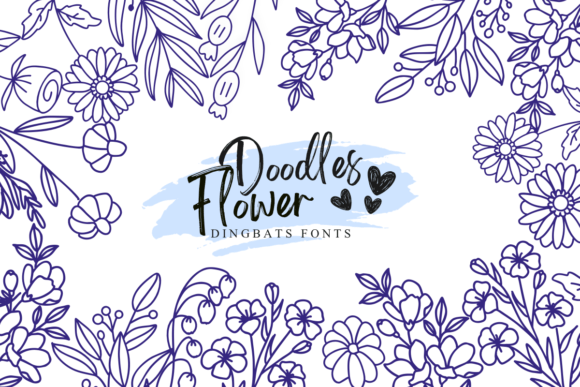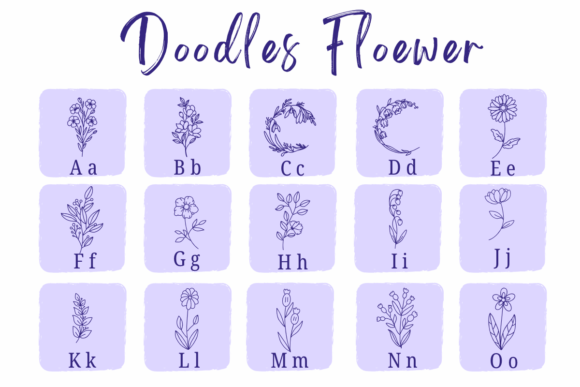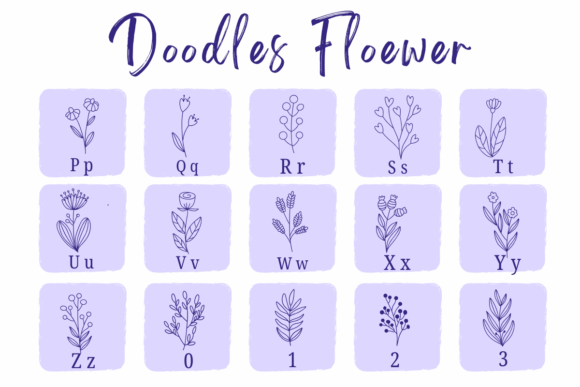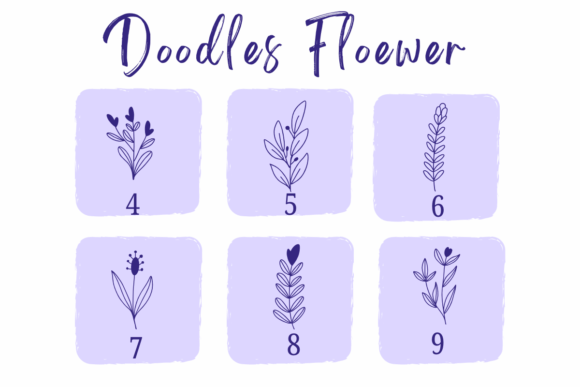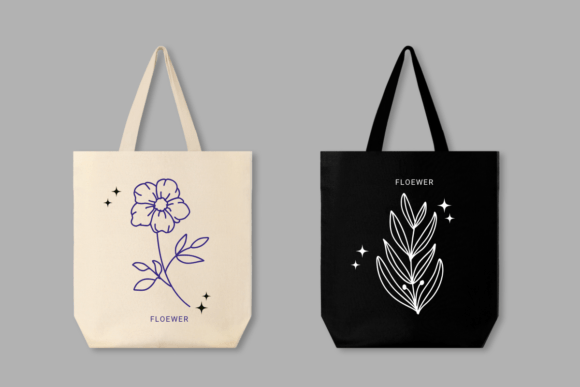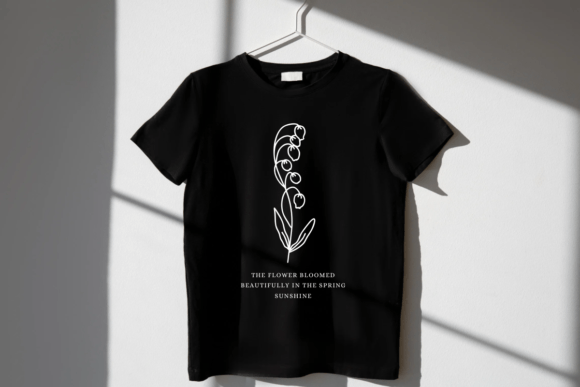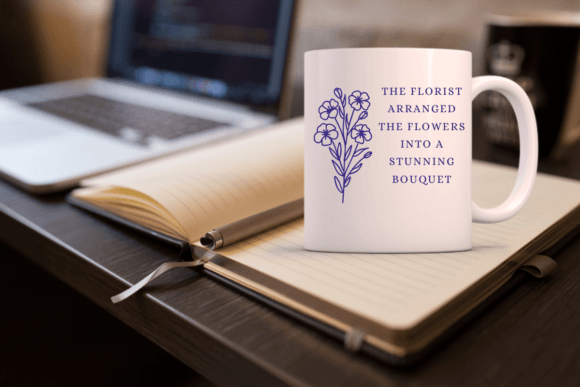
Get Ready to Bloom Your Designs with Doodles Flower Font
Have you ever been stuck in a creative rut, staring at a blank page or screen, searching for the perfect element to bring your design to life? I know I have! Sometimes all it takes is a tiny spark of inspiration to get those creative juices flowing. For me, that spark often comes from discovering a new font or tool that adds a touch of magic to my projects.
Enter Doodles Flower Font, a delightful dingbat font that’s bursting with cute flower designs. With Doodles Flower Font, each letter or symbol transforms into a beautiful flower, adding a whimsical and natural touch to your projects. Whether you’re designing a card, invitation, or simply want to add some flair to your social media posts, Doodles Flower Font is the perfect addition to your design toolkit.
As a designer, you know how valuable it is to have a versatile and easy-to-use tool like Doodles Flower Font in your arsenal. Its playful and charming designs make it an instant favorite among creatives, and its simplicity ensures that even the most novice designers can master it in no time.
Doodles Flower Font Key Features
- Character Set: The font includes a comprehensive set of characters, including uppercase and lowercase letters, numbers, punctuation marks, and special characters, making it suitable for various design projects.
- Unique Characteristics: The Doodles Flower Font features a playful, whimsical design with intricate floral patterns and doodle-style illustrations, adding a touch of personality to any design project.
- Font Style: The font is available in a single style, with a bold and playful feel that is perfect for creating eye-catching headings, titles, and graphics.
Doodles Flower Font Review
I recently had the chance to work with the Doodles Flower Font, and I wanted to share my honest thoughts on it.
- Unique Design: The Doodles Flower Font has a one-of-a-kind design that’s perfect for adding a touch of whimsy to your projects.
- Customizable: The font comes in a variety of styles and colors, making it easy to tailor to your specific needs.
- Playful Feel: The font’s playful feel makes it ideal for children’s books, party invitations, and other fun projects.
- Readability: While the font is perfect for decorative purposes, it can be difficult to read in large blocks of text.
- Lack of Standardization: The font’s unique design can make it challenging to use in conjunction with other fonts.
The Doodles Flower Font is a fun and creative addition to any design project. While it may have some limitations, its unique design and customizable options make it a great choice for adding a playful touch to your work.
Getting the Most Out of Doodles Flower Font
To get the most out of Doodles Flower Font, use it for:
Wedding invitations, stationery, and decorations.
Children’s party invitations and decorations.
Floral-themed designs, such as garden or flower arrangements.
Use the font in combination with other decorative elements, such as illustrations or graphics.
Doodles Flower Font is perfect for:
Creating a whimsical and playful atmosphere.
Adding a touch of elegance and sophistication.
Designing for children and young adults.
Alternatives to Doodles Flower Font for Designers
Compared to Doodles Flower Font, Great Vibes has a more refined and polished look, making it suitable for a wider range of applications. While Doodles Flower Font has a more playful and childlike feel, Great Vibes is more suitable for adult audiences.
Q: Can I modify the Doodles Flower Font to create a custom version?